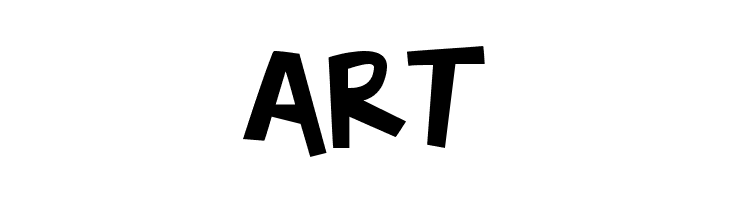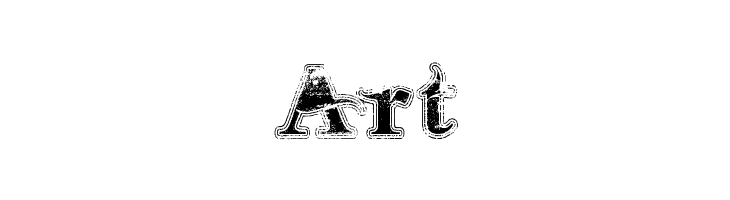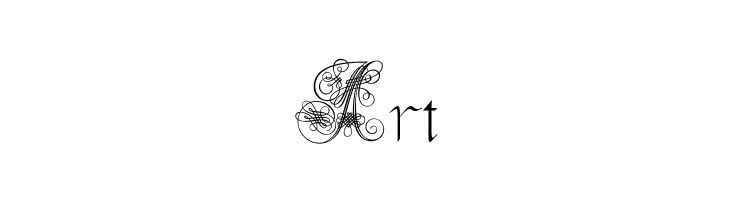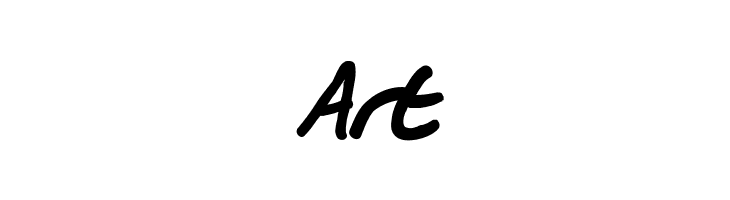
A modern, artistic font with elongated, narrow characters and high contrast strokes.
An elegant script font with ornate flourishes and high contrast strokes.
A fluid and elegant handwritten font with dynamic strokes.
A graceful and fluid script font with elegant, flowing lines.
A graceful script font with flowing, cursive letters and elegant swashes.
A playful, handwritten font with smooth, rounded edges and a casual flow.
A bold, geometric sans-serif font with high contrast and framed uppercase letters.
A playful, handwritten font with an organic and casual style.
A bold, playful font with rounded edges and a hand-drawn style.
A dynamic and playful italic script font with fluid, connected characters.
A playful, handwritten-style font with rounded edges and a casual feel.
A playful, hand-drawn font with bold, rounded characters and a whimsical style.
An elegant, flowing script font with high contrast and graceful curves.
An elegant, cursive font with a flowing, italic style, perfect for artistic and personal projects.
A bold, modern font with geometric influences and consistent stroke widths.
An elegant script font with intricate swashes and flowing letterforms.
An elegant italic font with smooth, flowing lines and moderate contrast.
A classic serif font with elegant strokes and refined details.
A modern, cursive font with elegant, flowing letterforms and decorative swashes.
A dynamic and elegant italic script font with flowing, connected characters.
A casual, handwritten font with a dynamic and flowing style.
A bold, modern font with a vintage touch, featuring strong, consistent characters.
An elegant, flowing script font with ornate uppercase and smooth lowercase characters.
A fluid and elegant handwritten font with dynamic letterforms.
A bold, expressive handwritten script font with a modern, artistic flair.
A bold, italic script font with dynamic and flowing letterforms.
A bold, expressive script font with flowing, cursive letterforms and high contrast.
A graceful script font with elegant loops and swirls, perfect for romantic designs.
A bold, modern script font with elegant swashes and dynamic curves.
A bold, brush-style font with an expressive and artistic appearance.
A bold, cursive script font with elegant, flowing lines and a strong presence.
A bold, dynamic script font with fluid strokes and a modern, artistic style.
A bold, dynamic font with a modern and energetic style.
A festive, bold font with decorative holiday elements and a playful style.
An elegant script font with intricate swirls and decorative flourishes.